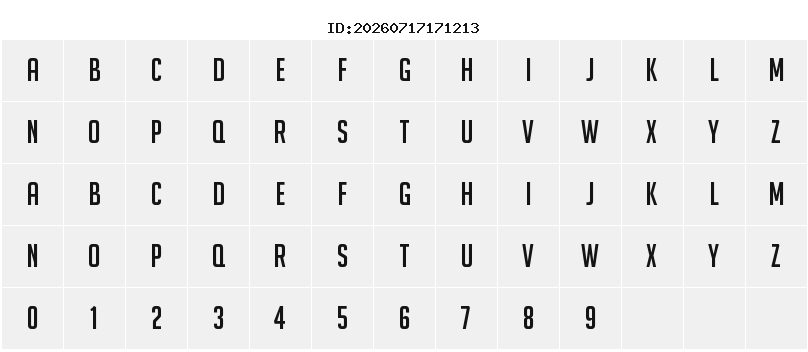
BigNoodleTitling Preview
• Font Name: BigNoodleTitling
• Designer: James Arboghast/Sentinel Type
About BigNoodleTitling.ttf
BigNoodleTitling.ttf is a modern, elegant sans-serif font designed for ultimate readability and visual harmony. Perfect for branding, headlines, web design, and print materials.